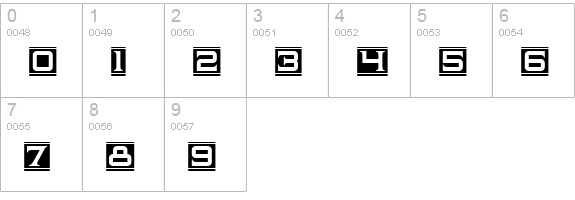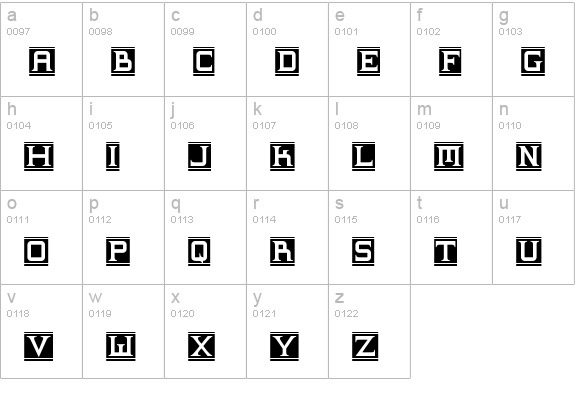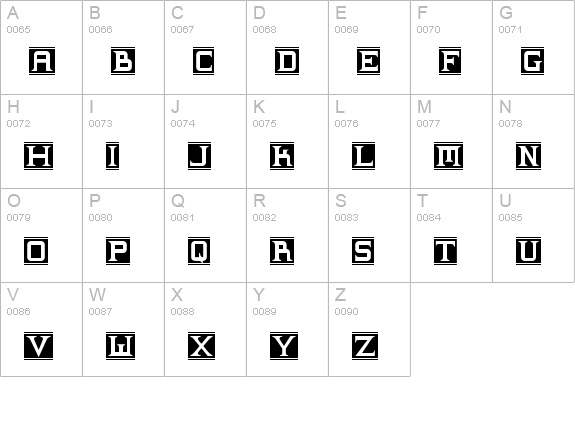
Supremaganda BTN Banner Font Details
Supremaganda BTN Banner font is a powerful and eye-catching typeface that commands attention with its bold and commanding presence. Its unique design exudes confidence and authority, making it perfect for headlines, banners, and other display purposes. The font features strong, angular letterforms that convey a sense of strength and determination. What sets Supremaganda BTN Banner font apart is that it is not only visually striking but also completely free to download. You can get your hands on this impressive font at FontsMarket.com, where you can access a wide range of high-quality fonts for all your design needs. Don't miss out on the opportunity to add this impactful typeface to your collection and make a bold statement with your next project.